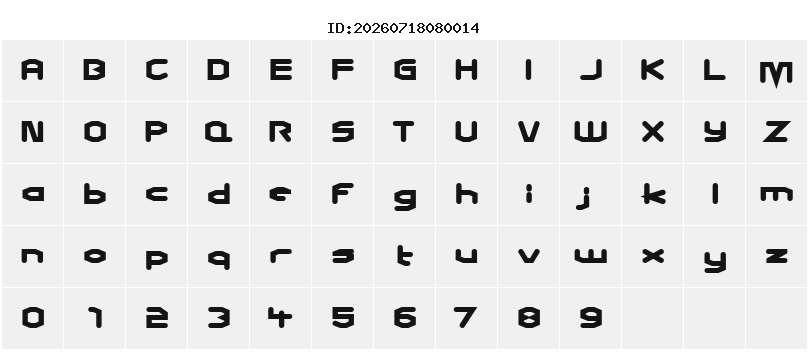
• Font Name: Charles in Charge
• Font ID: RayLarabie: Charles in Charge: 1998
• Full Font Name: Charles in Charge
• Designer: Ray Larabie
• Manufacturer: Ray Larabie
About Charles in Charge.ttf
Charles in Charge.ttf is a modern, elegant sans-serif font designed for ultimate readability and visual harmony. Perfect for branding, headlines, web design, and print materials.